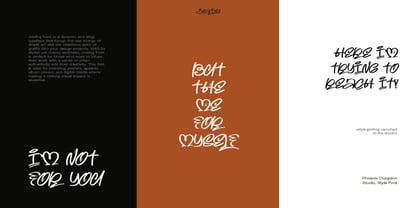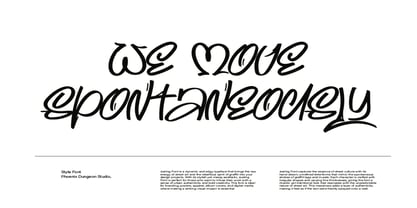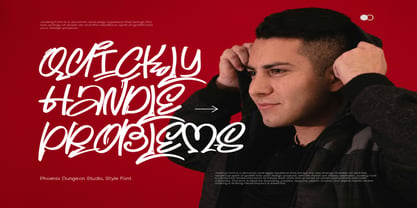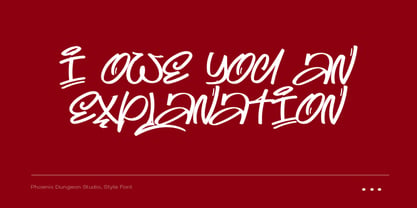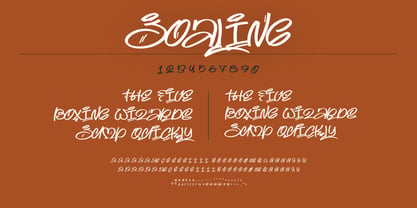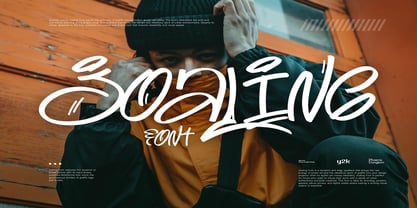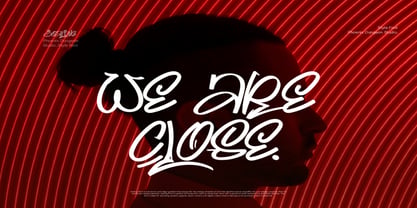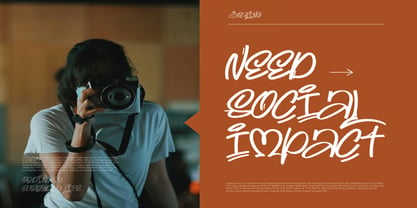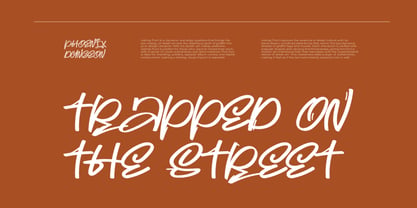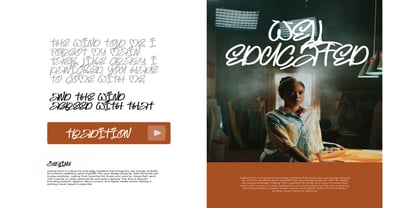
Joaling
by Phoenix Group
The Joaling Font Family was designed by Alif Naufal Muzakki and published by Phoenix Group. Joaling contains 1 styles. More about this family
Joaling Font is a dynamic and edgy typeface that brings the raw energy of street art and the rebellious spirit of graffiti into your design projects. With its stylish yet messy aesthetic, Joaling Font is perfect for those who want to infuse their work with a sense of urban authenticity and bold creativity. This font is ideal for branding, posters, apparel, album covers, and digital media where making a striking visual impact is essential.
Designers: Alif Naufal Muzakki
Foundry: Phoenix Group